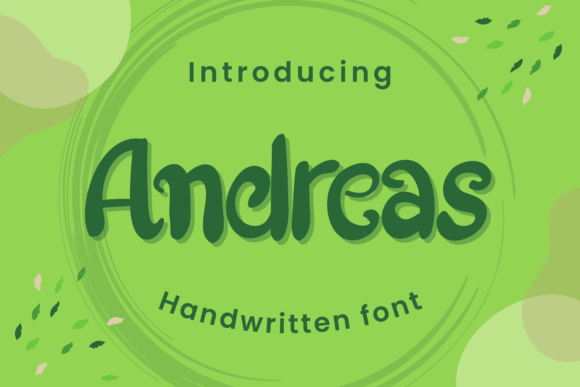
The Quest for the Perfect Handwritten Font: Meet Andreas
I still remember the time I was working on a wedding invitation project, and my client asked for a font that was “cute,” “handwritten,” and “whimsical.” I scoured the internet, tried countless fonts, but nothing seemed to fit the bill. That was until I stumbled upon Andreas Font. ✨
Andreas is a beautiful, curly handwritten font that has become a staple in my design toolkit. Its unstructured ink strokes give it a charming, organic feel that’s perfect for a wide range of design projects. In this article, I’ll share my honest review of Andreas Font, provide a practical guide on how to use it, and explore similar fonts and alternatives.
An Honest Review of Andreas Font
• ✨ Cute and Whimsical: Andreas Font has a playful, curly personality that’s perfect for designs that need a touch of whimsy.
• ✅ Highly Versatile: This font is suitable for a wide range of design projects, from logos and wedding invitations to t-shirts and posters.
• 💯 Ink Strokes: The unstructured ink strokes give Andreas Font a beautiful, organic feel that’s sure to capture attention.
While Andreas Font is an excellent choice for many design projects, it’s not without its quirks. 🤔 Here are a few limitations to consider:
• ⚠️ Limited Use in Small Sizes: Due to its curly and intricate design, Andreas Font may not be the best choice for small font sizes or body text.
• ⚠️ Kerning Issues: As with many handwritten fonts, kerning can be a bit tricky with Andreas Font. Be sure to adjust the kerning manually to achieve the best results.
The Designer Inspiration Behind Andreas Font
Andreas Font was inspired by the beautiful, handwritten notes of a creative designer. 📝 The font’s creator wanted to capture the essence of handwritten writing, with all its imperfections and quirks. The result is a font that’s both elegant and playful, perfect for designs that need a touch of personality.
Font Name Andreas Font
Author Noanggo Nami
Q: What type of designs is Andreas Font best suited for?
A: Andreas Font is suitable for a wide range of design projects, including logos, wedding invitations, t-shirts, letterheads, labels, news, posters, badges, and more.